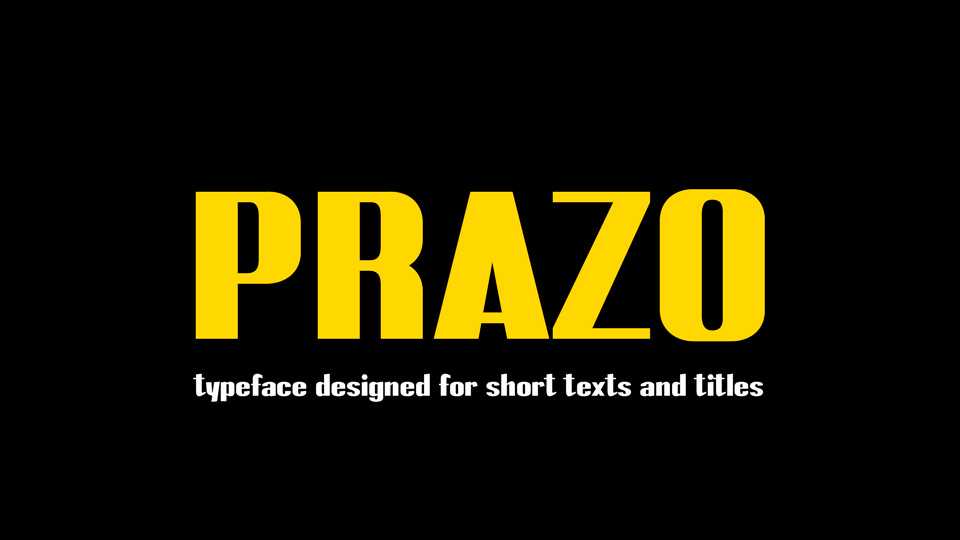
Download Prazo font, a bold high contrast display typeface designed for short texts and titles. With its powerful look Prazo is perfect to make a strong impression in print, headlines, video, and social media.
Designer: Marco Antonio Ramirez Murga